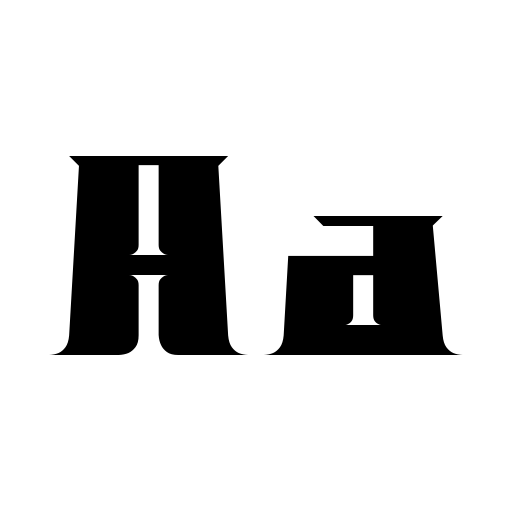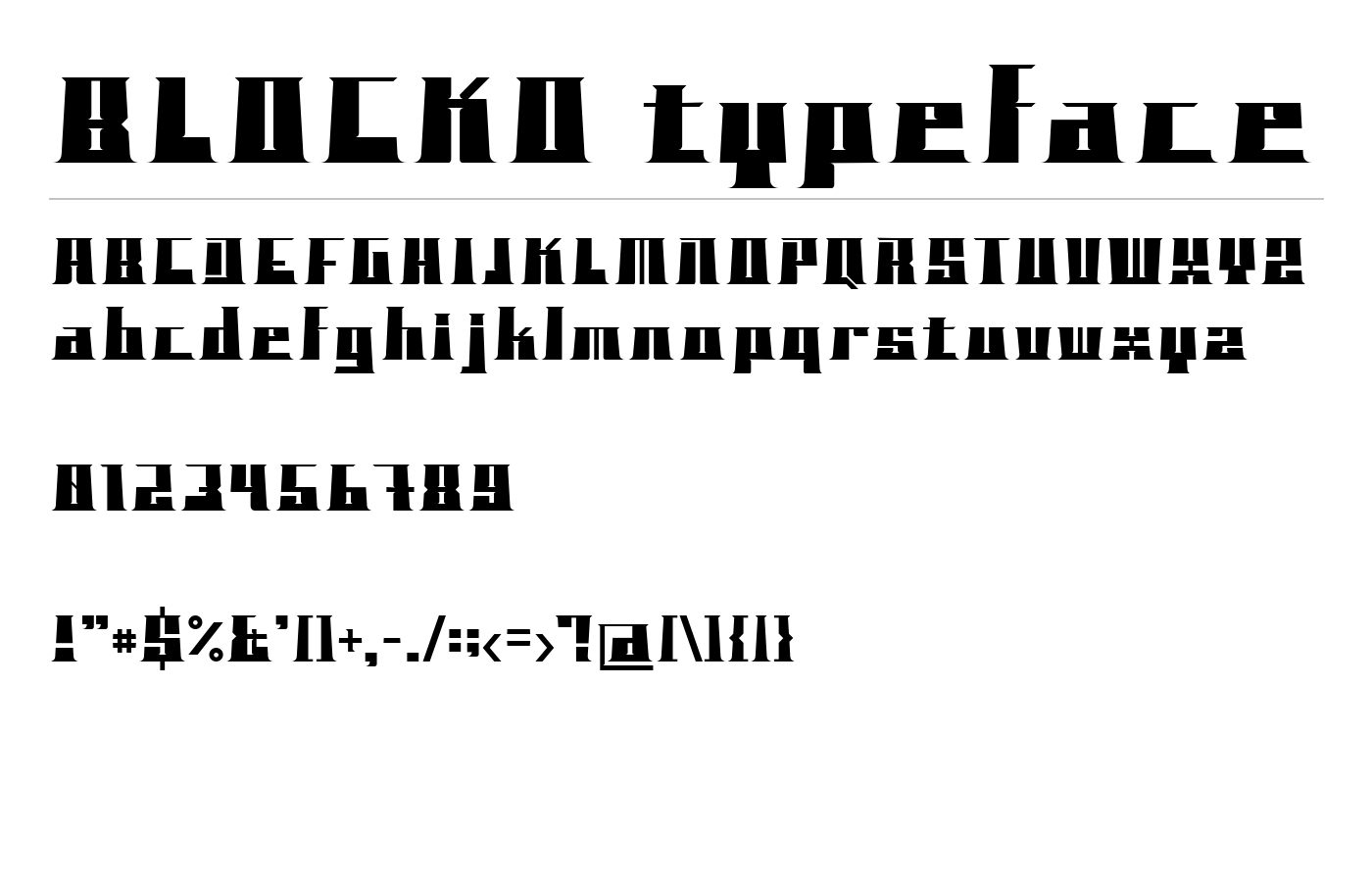
BLOCKO is a bold, condensed slab serif typeface with striking high contrast between thick and thin strokes, featuring sharp, geometric edges and strong vertical emphasis. Its distinctive, blocky letterforms and unique stroke cuts give it a vintage industrial vibe, making it ideal for eye-catching headlines, logos, and branding that demand a powerful, assertive presence. This font works best where a dramatic, memorable look is needed, such as in posters, packaging, and fashion or luxury branding.
BLOCKO typeface Font
About BLOCKO typeface Font
| Font family | BLOCKO typeface Font |
| Designer | Jorrit van Rijt |